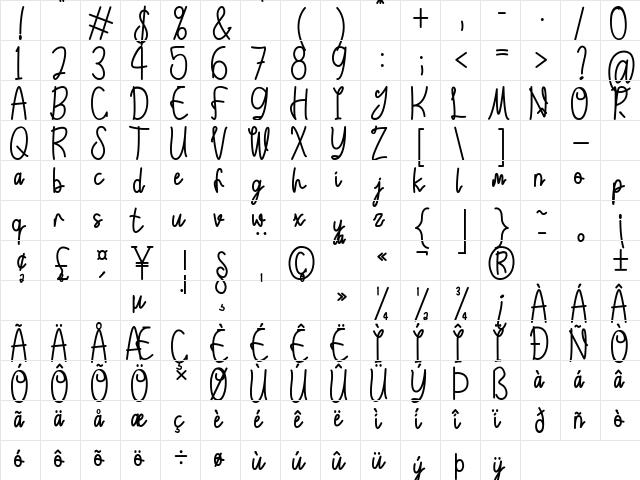
Leontine Regular
| Designer | Sungi Creative |
Design Context for Leontine Typeface
Leontine is a composed and adaptable typeface that performs quietly and consistently across a wide range of design contexts.